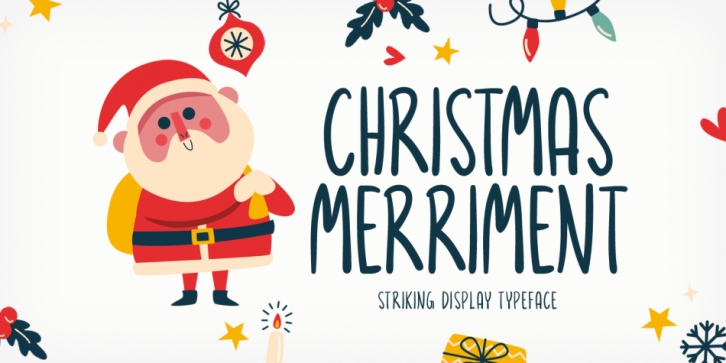
Designed by Md. Shohail Bhuiyan, Christmas Merriment is a hand display font published by Seemly Fonts.
Christmas Merriment is a natural and simple lettered display font. It is perfectly suited for stationery, logos, t-shirt, paper, print design, website header, photo frame, flyer, music cover, poster, image slider, and much more.